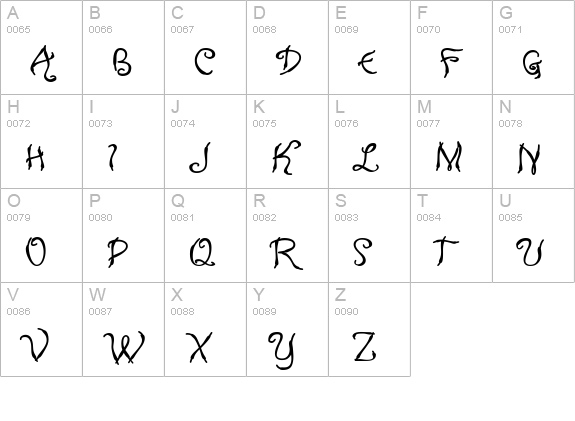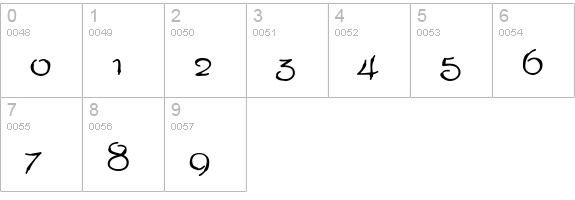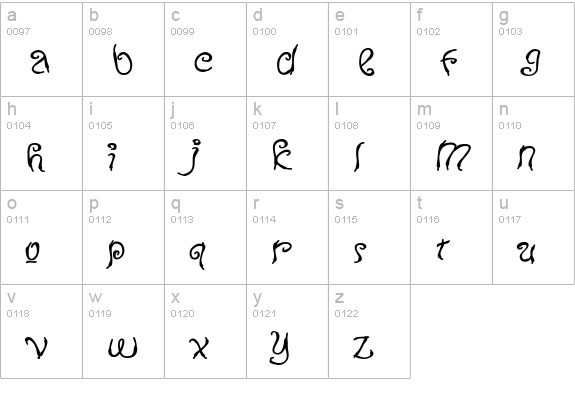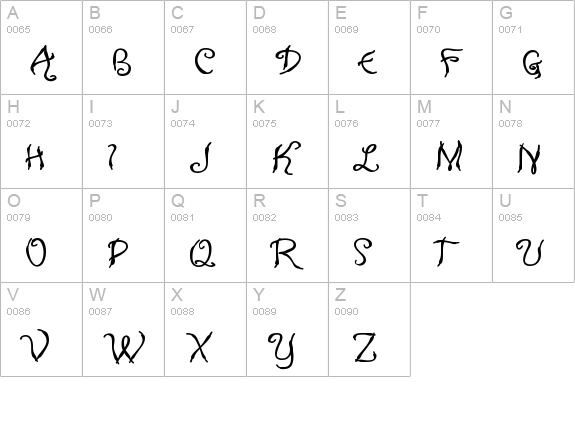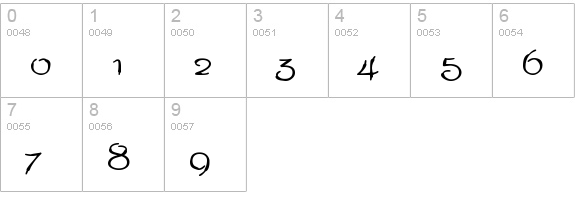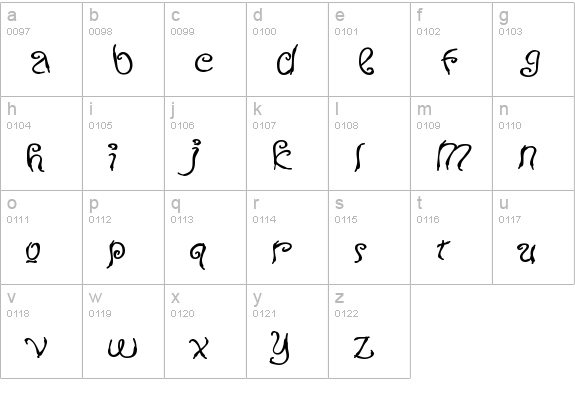
Neurotic Minds BTN Bold Font Details
Neurotic Minds BTN Bold is a strong, high-contrast variant in the Neurotic typeface family \xE2\x80\x94 well suited to headlines, attention-grabbing titles, and strong calls-to-action.
Neurotic Minds BTN Bold font is a bold and impactful typeface designed for those seeking to make a statement with their typography. Its strong and edgy appearance is perfect for grabbing attention and adding a touch of personality to any project. The font exudes a sense of confidence and modernity, making it ideal for branding, advertising, and display purposes. What sets Neurotic Minds BTN Bold font apart is its unique blend of sharp lines and distinctive letterforms, giving it a dynamic and engaging look. Whether you're designing a poster, logo, or website, this font will help you stand out from the crowd and leave a lasting impression on your audience. Best of all, Neurotic Minds BTN Bold font is freely available to download at FontsMarket.com. This means you can start using this striking typeface in your projects right away, without having to worry about any extra costs. Don't miss out on the opportunity to elevate your designs with Neurotic Minds BTN Bold font today!